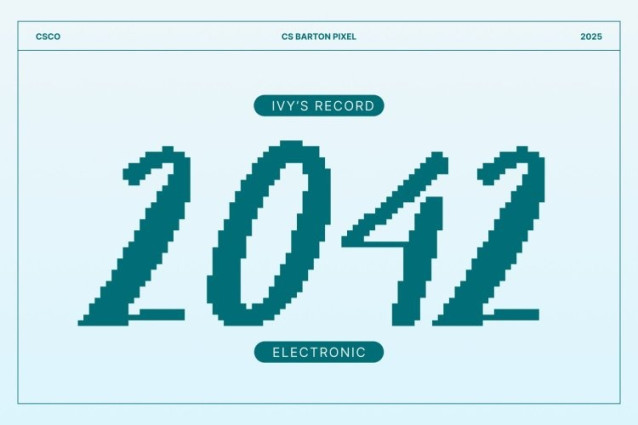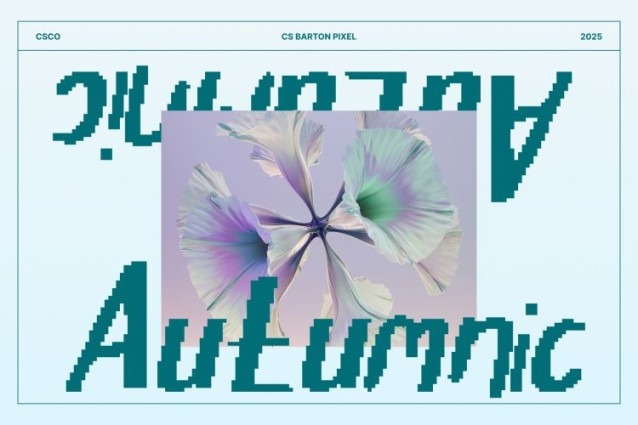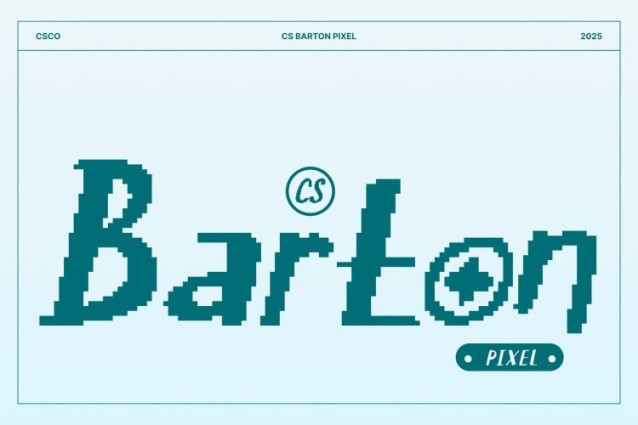
CS Barton Pixel Font This font combines the nostalgic appeal of retro pixel graphics with the warmth of a handwritten style, creating a display font that feels both classic and creatively modern. Each character is formed with playful pixel blocks while still maintaining the flow and personality of a true handwritten stroke.
Pixelated Style That Evokes Retro Digital Energy
With its pixel-inspired structure, this font instantly brings back the iconic look of early digital screens, arcade visuals, and 8-bit graphics. The pixelated edges add a visually striking texture, giving every word a nostalgic tech feel. This makes the font perfect for designs that want to capture a retro gaming mood or celebrate digital culture with a fun twist.
Playful Handwritten Texture for a Personal, Creative Look
Beyond its digital pixel influence, the handwritten touch softens the rigid grid, making the font feel more human, friendly, and expressive. This combination creates a unique visual identity playful yet structured, retro yet handmade making this font suitable for creative layouts that need personality and originality.
Perfect for Posters, Branding, and Creative Digital Projects
This font thrives in bold, playful compositions. Whether you’re designing posters, branding materials, social media graphics, or digital interfaces, it adds a cute and energetic vibe to your visuals.